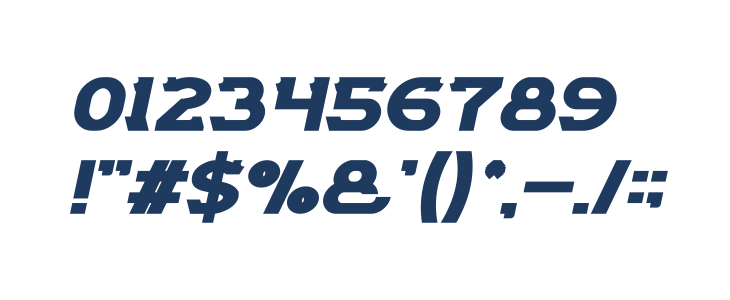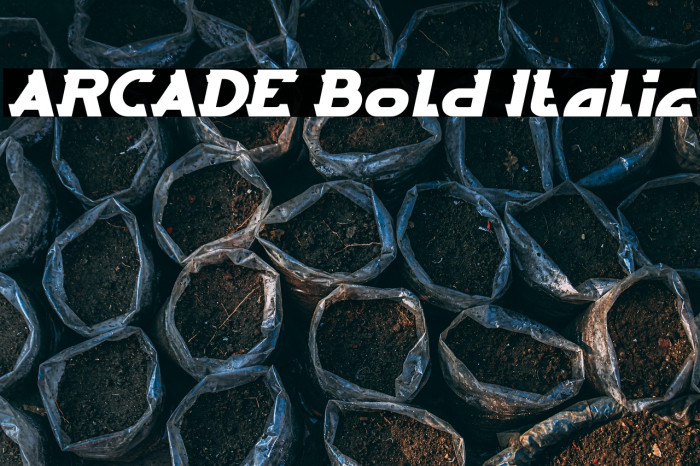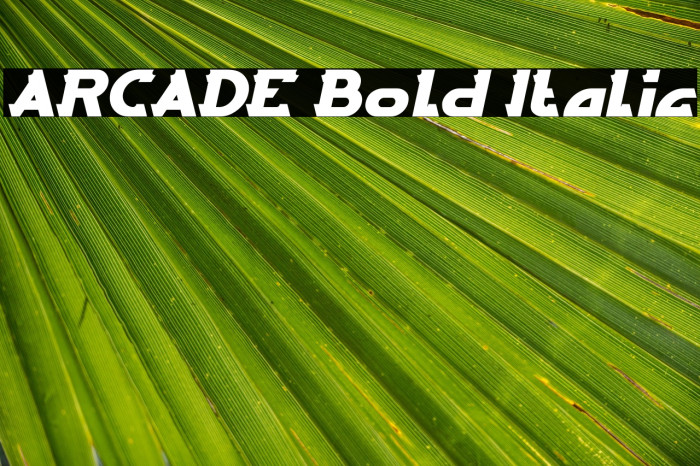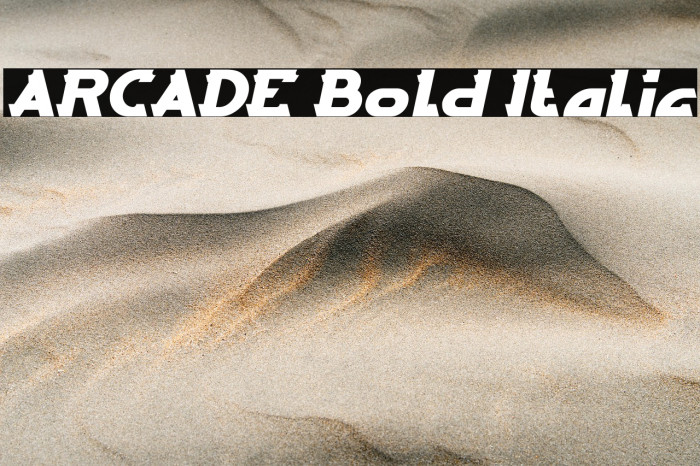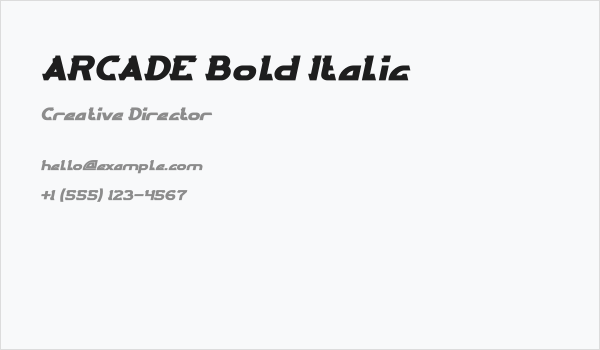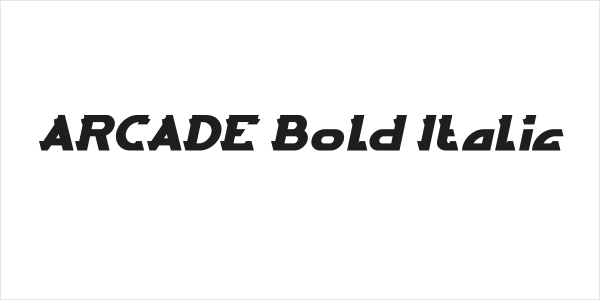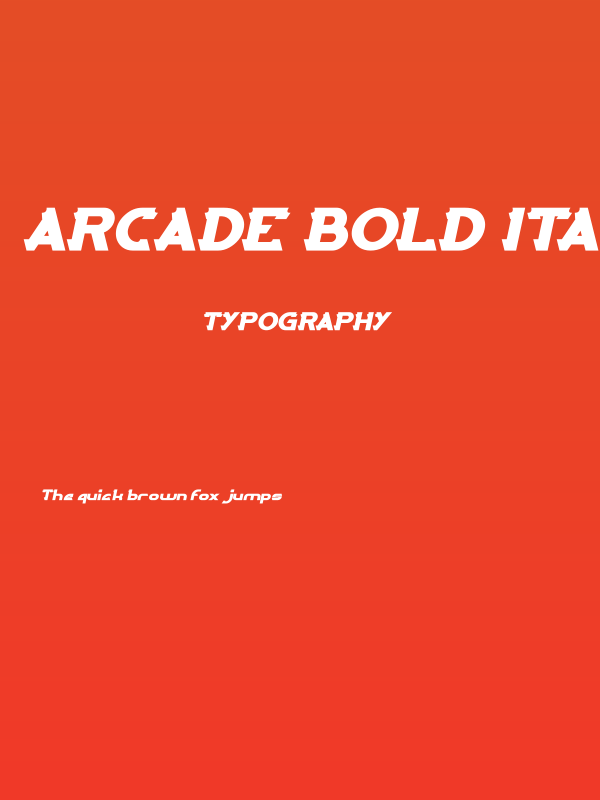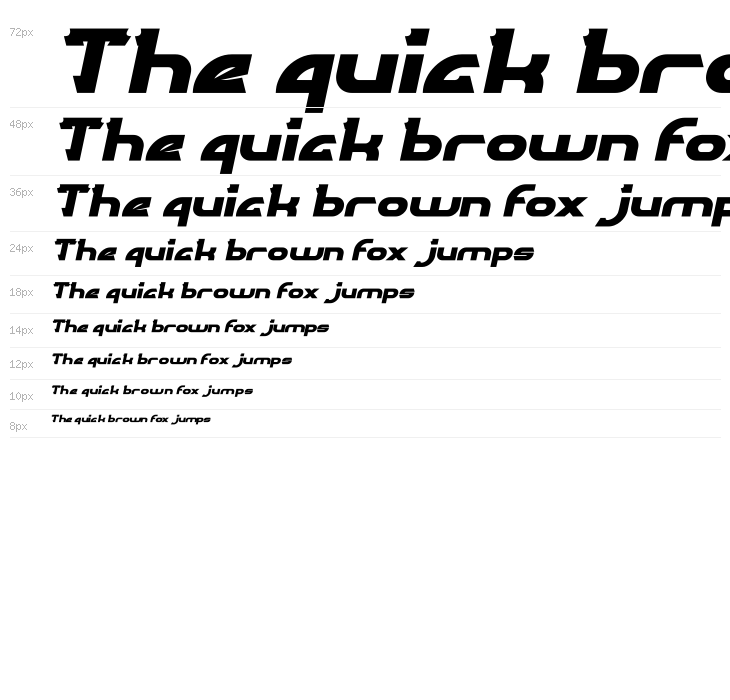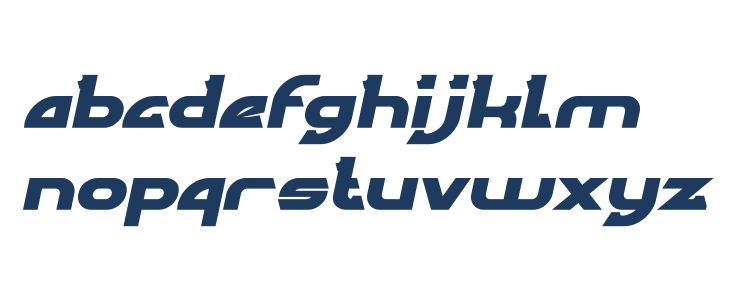
ARCADE Bold Italic Font
ARCADE Bold Italic Description
This font features a bold and italicized style with a distinct, angular design reminiscent of retro arcade games. The characters are sharply defined with a futuristic flair, combining thick strokes and geometric shapes. The uppercase and lowercase letters maintain a consistent slant, enhancing the dynamic and energetic appearance. Numbers and special characters follow the same stylistic cues, ensuring uniformity across all glyphs. The overall aesthetic is bold and eye-catching, making it suitable for projects that require a strong visual impact.
| Overall Style | Retro, Futuristic |
| Proposed Projects | Ideal for video game titles, retro-themed posters, and branding for tech or entertainment industries. |